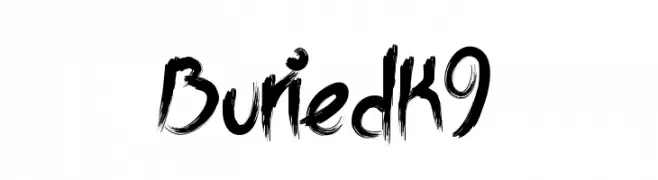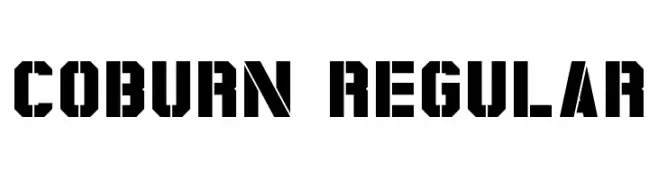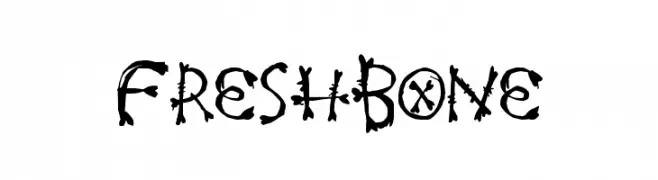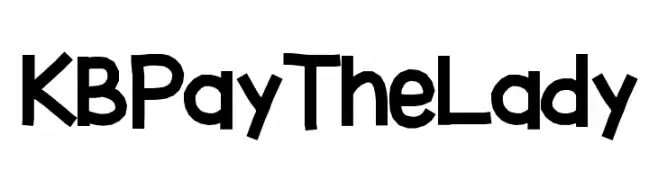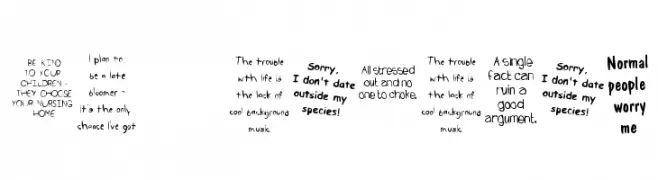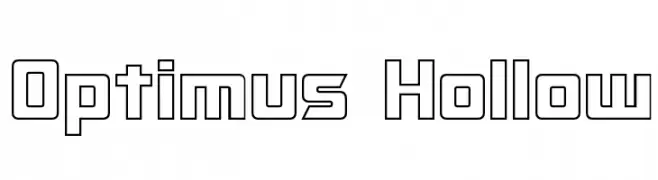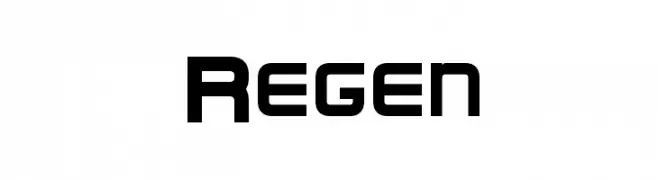
A bold, geometric font with a modern, futuristic style.
A bold, modern decorative font with unique geometric cutouts and expanded width.
A bold, geometric font with a hollow interior, offering a futuristic and industrial look.
A bold, angular font with a leftward slant, ideal for dynamic and impactful designs.
An edgy, bone-like font with sharp, irregular edges and a rugged appearance.
A playful, hand-drawn font with bold, rounded characters.
A playful, handwritten font with a quirky and dynamic style.